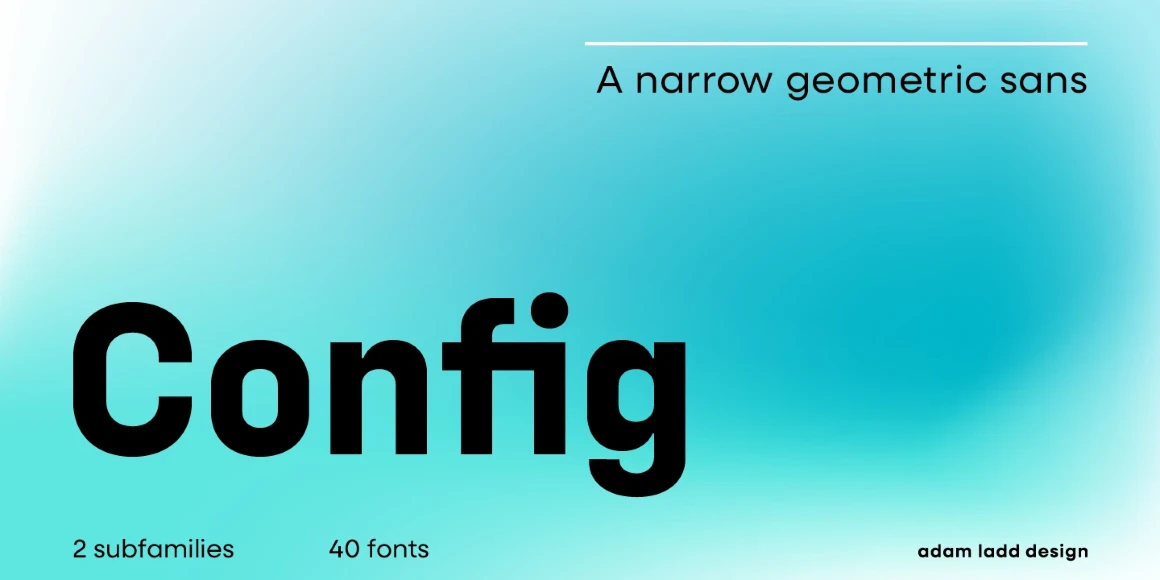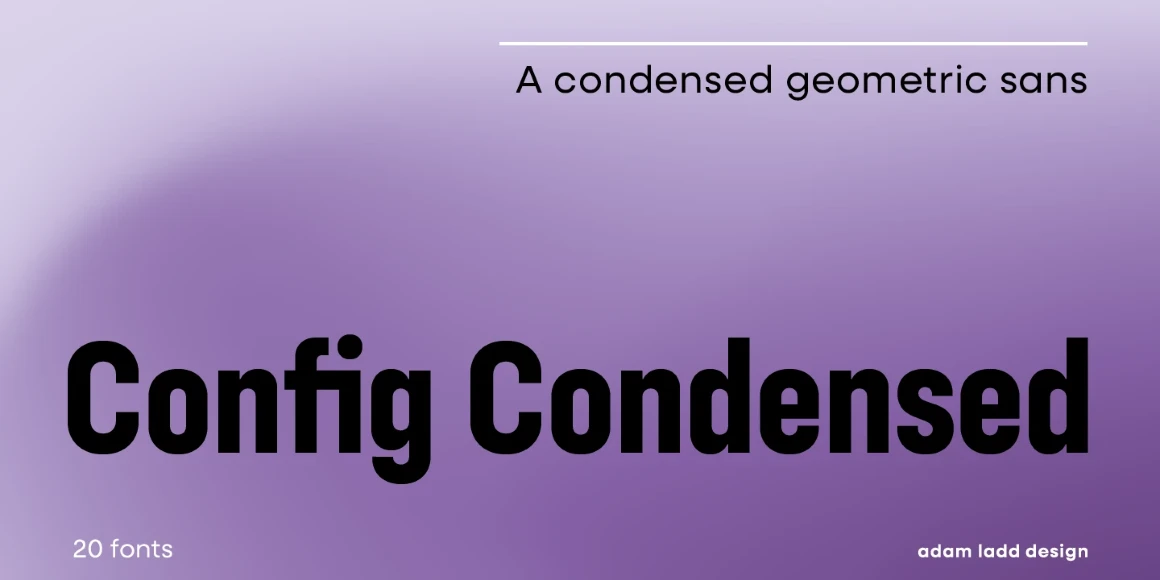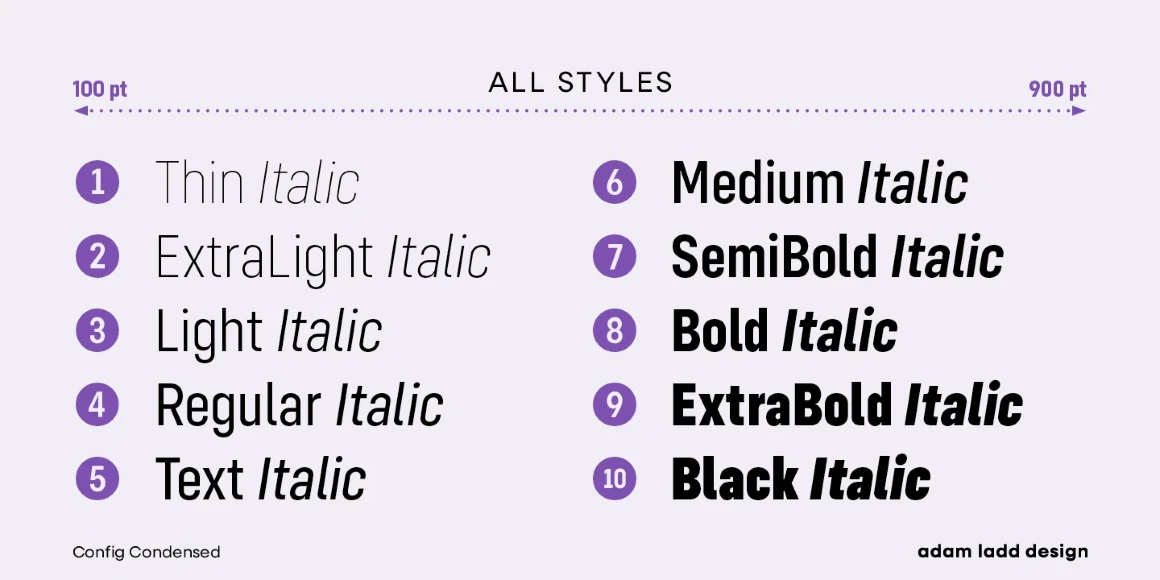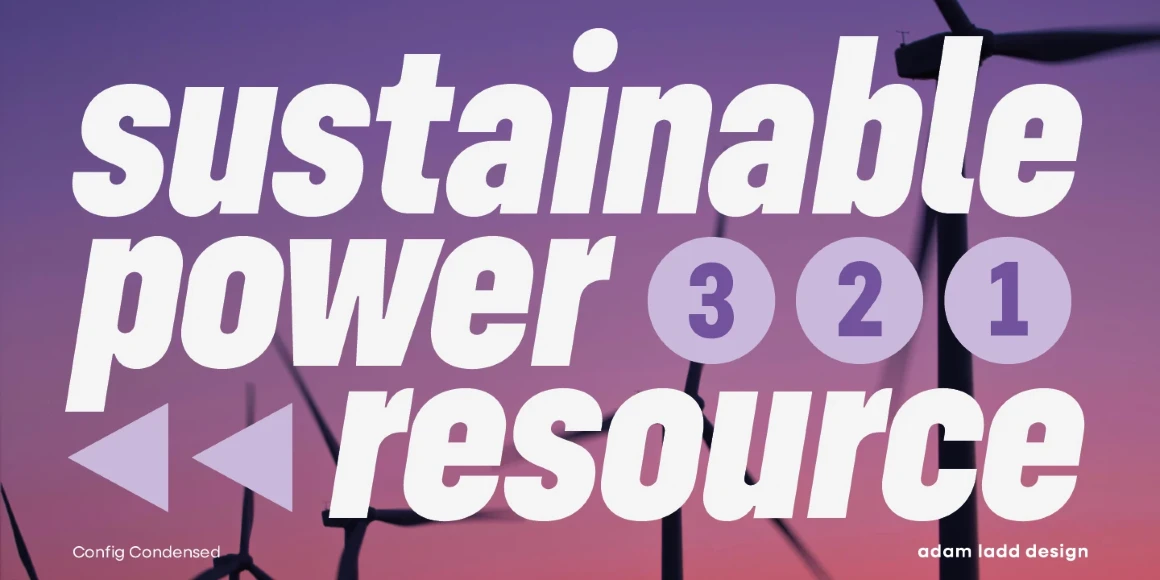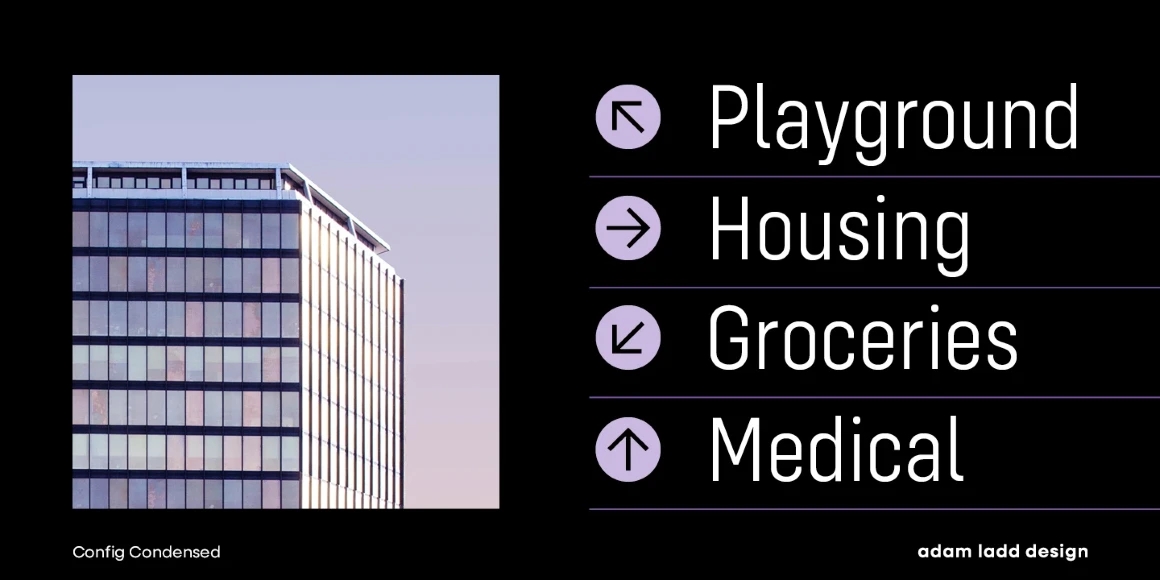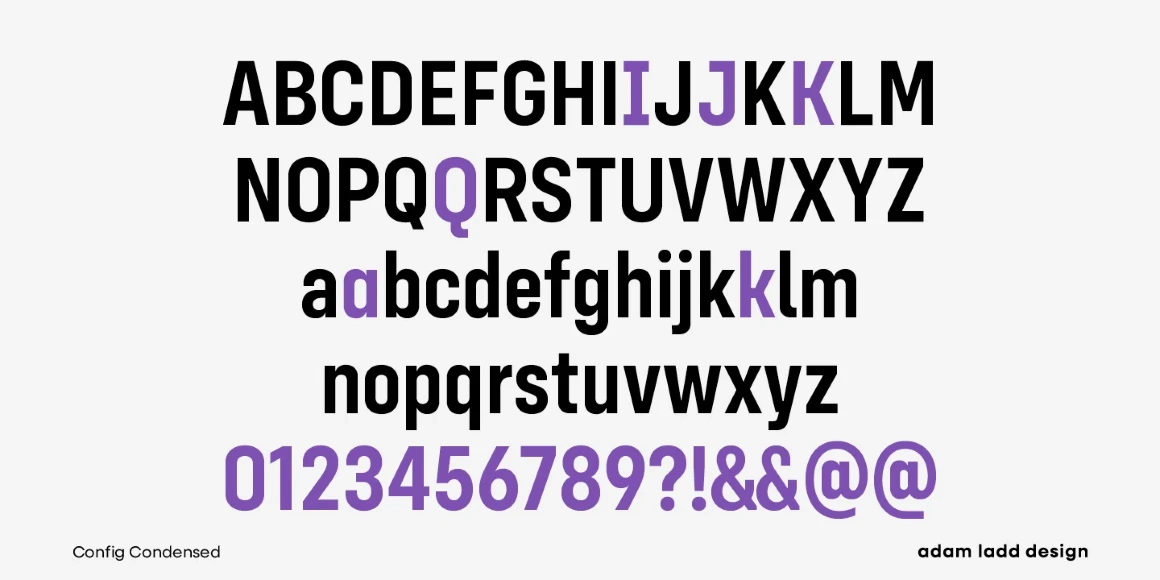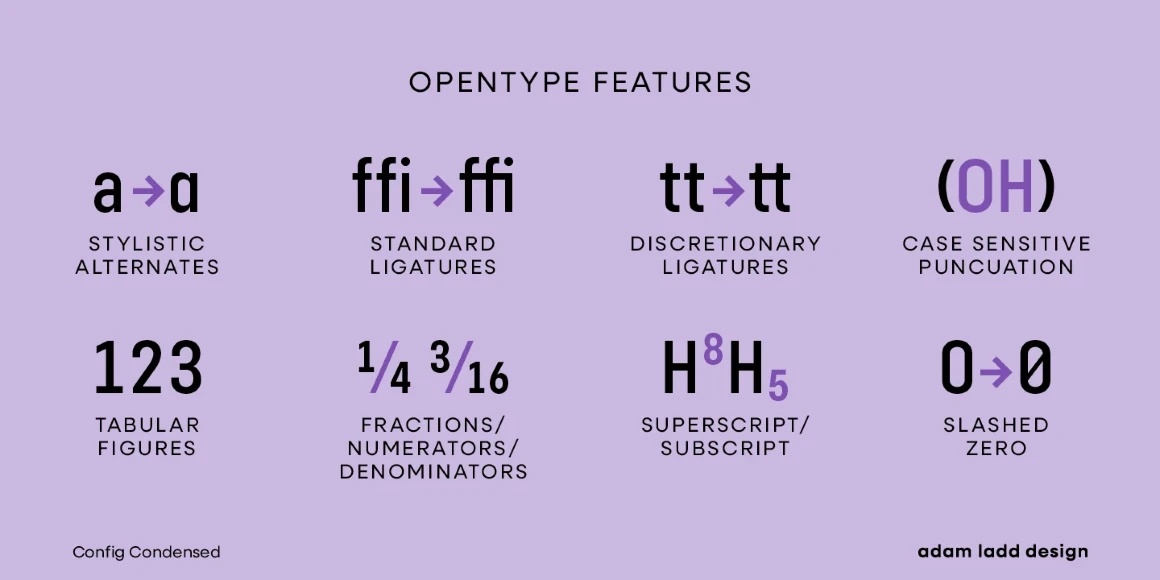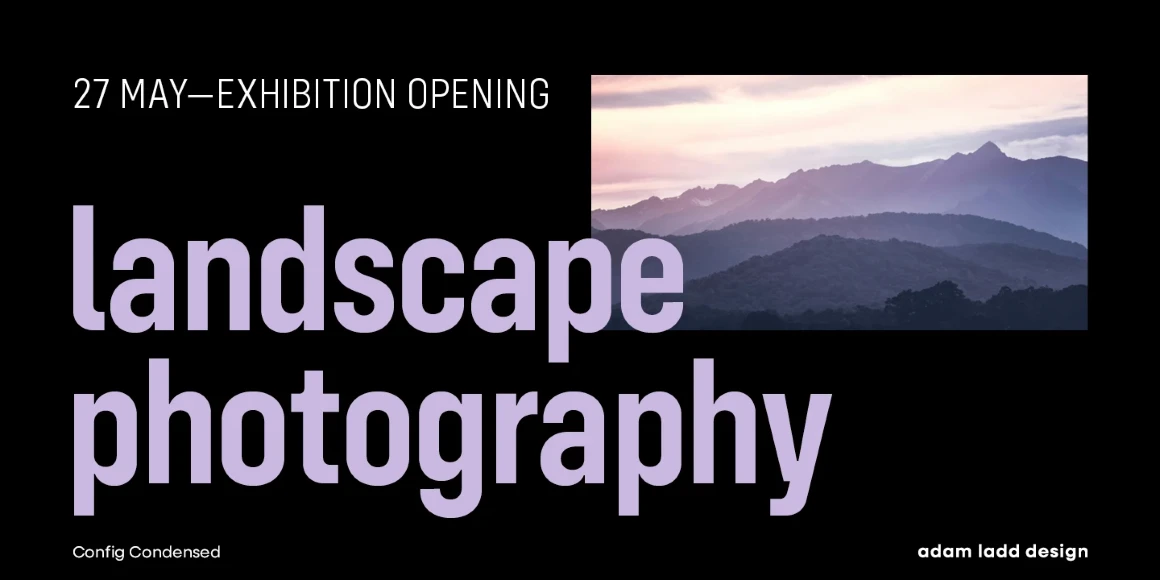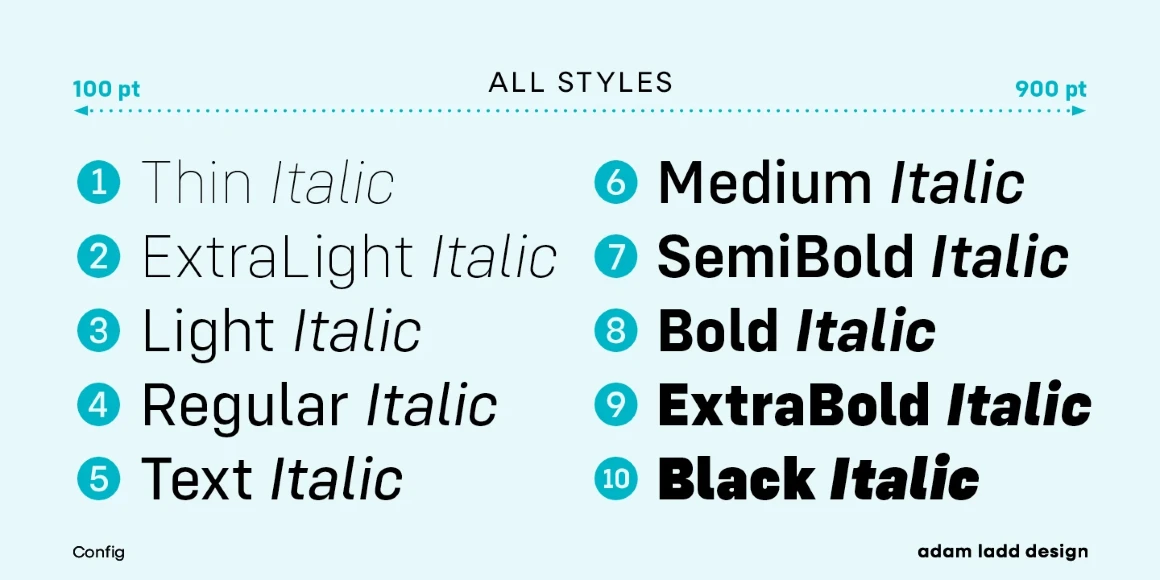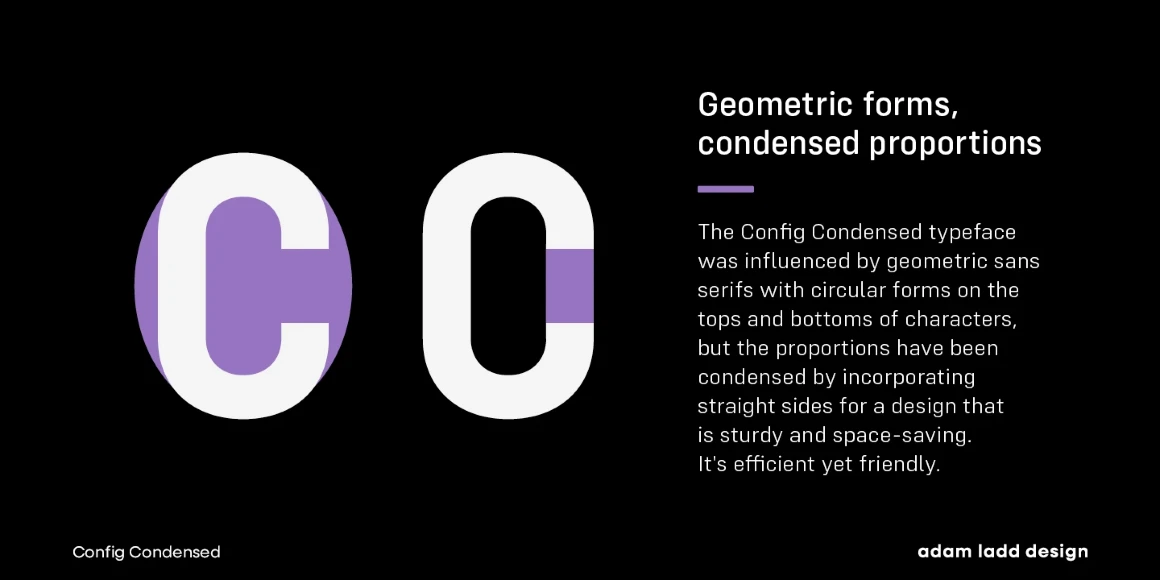
Config
From Adam Ladd Design
Config is a geometric sans family in the style of other industrial typefaces. The design was influenced by geometric sans serifs with circular forms on the tops and bottoms of characters. Still, the proportions have been condensed by incorporating straight sides for a sturdy and space-saving design. This typeface’s efficiently neutral, friendly design and subtle details make it functional for text and display sizes. The options are endless, with 40 styles across 10 weights, plus italics.
Designed by Adam Ladd